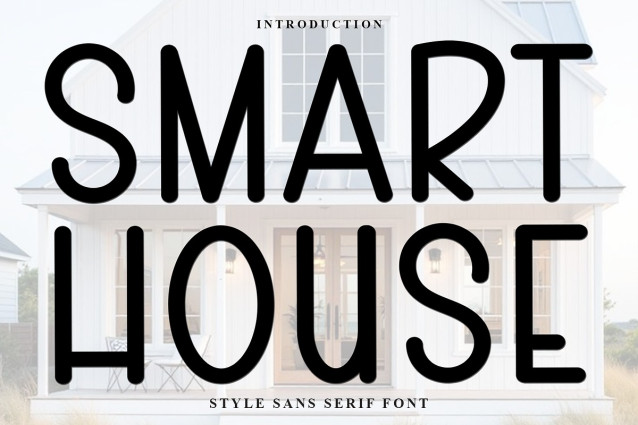
Smart House Display Font
Smart House Display Font is a beautiful and eye-catching font designed with a soft, unique touch. Its distinctive strokes give it a special character, making it meaningful and versatile for future use. With various characters, it’s perfect for design projects, crafts, and other creative works.